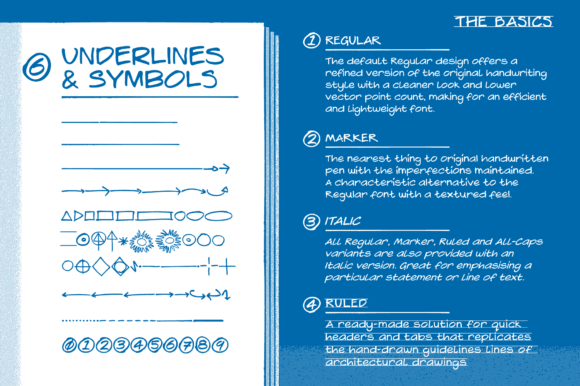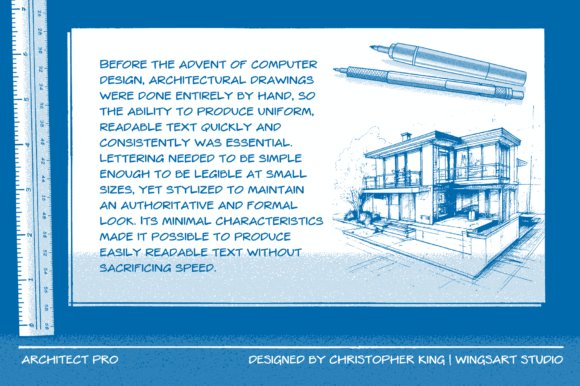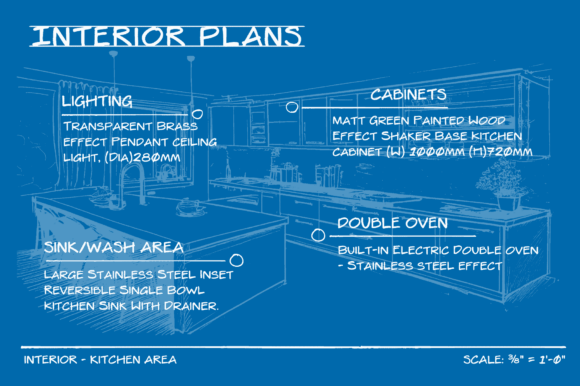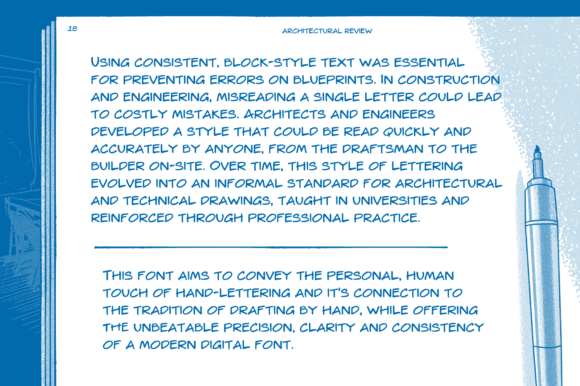
A clear, legible handwriting font in the tradition of professional architectural design.
What would typically be considered architectural-style lettering emerged from the need for clarity, precision, and consistency in architectural drawings? This unique style of handwriting can be traced back to the early 20th century when the architectural drafting process required clear, easily legible text that could convey information in a small space. This style became a hallmark of professionalism, emphasizing functionality and a clean, technical aesthetic that supported complex designs.
Before the advent of computer design, architectural drawings were done entirely by hand, so the ability to produce uniform, readable text quickly and consistently was essential. Lettering needed to be simple enough to be legible at small sizes, yet stylized to maintain an authoritative and formal look. Its minimal characteristics made it possible to produce easily readable text without sacrificing speed.
Using consistent, block-style text was essential for preventing errors on blueprints. In construction and engineering, misreading a single letter could lead to costly mistakes, so architects and engineers developed a style that could be read quickly and accurately by anyone, from the draftsman to the builder on-site. Over time, this style of lettering evolved into an informal standard for architectural and technical drawings, taught in universities and reinforced through professional practice.
This font aims to convey the personal, human touch of hand-lettering and its connection to the tradition of drafting by hand while offering the unbeatable precision, clarity and consistency of a modern digital font.